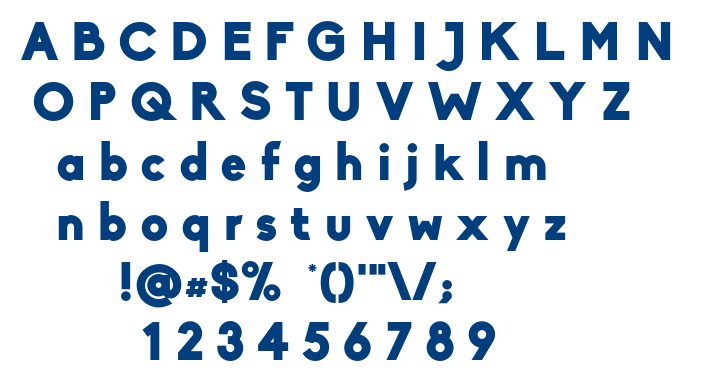
Tiny Small Medium Large Biko font jesuismonreve Website Biko_Regular.otf Biko_Bold.otf Biko_Black.otf Download 2537 downloads Free for personal use Category: Basic » Sans serif Biko is perfect for display, copy text and logos. For commercial use, you can purchase the font at: www.monofonts.com Character Map specimen sheet